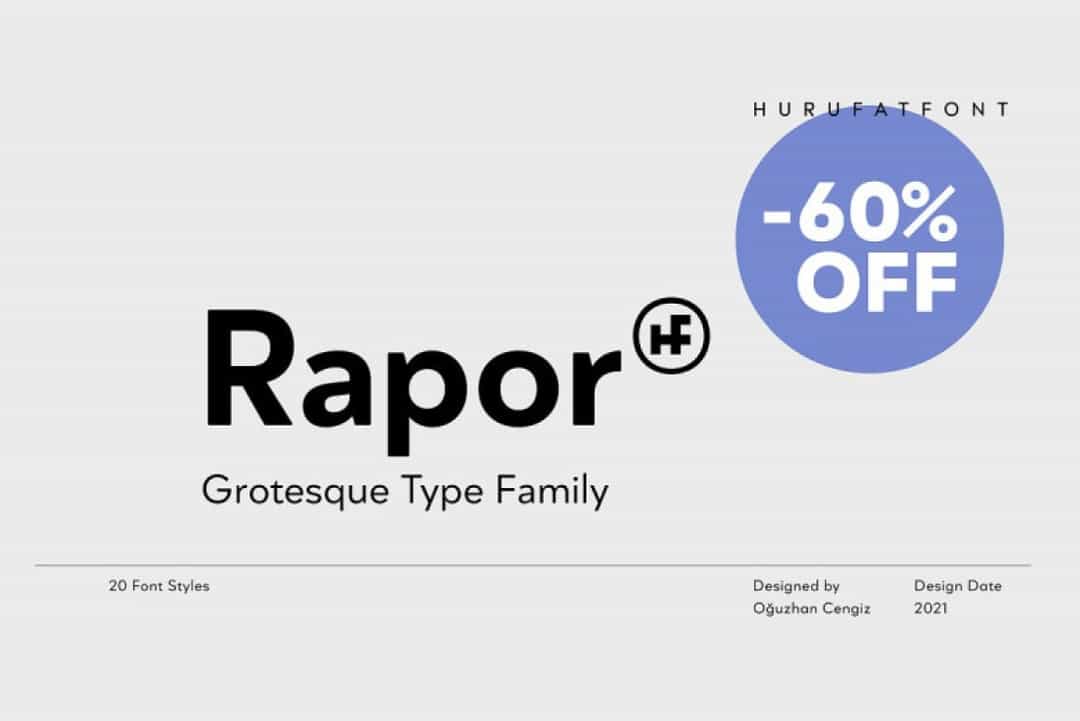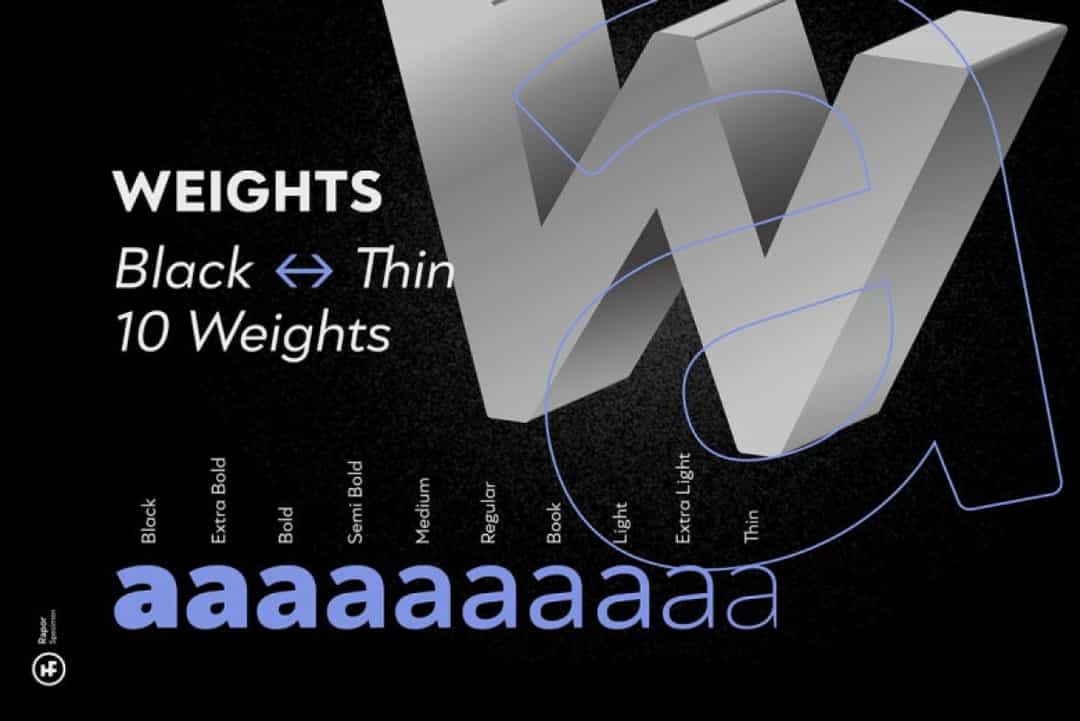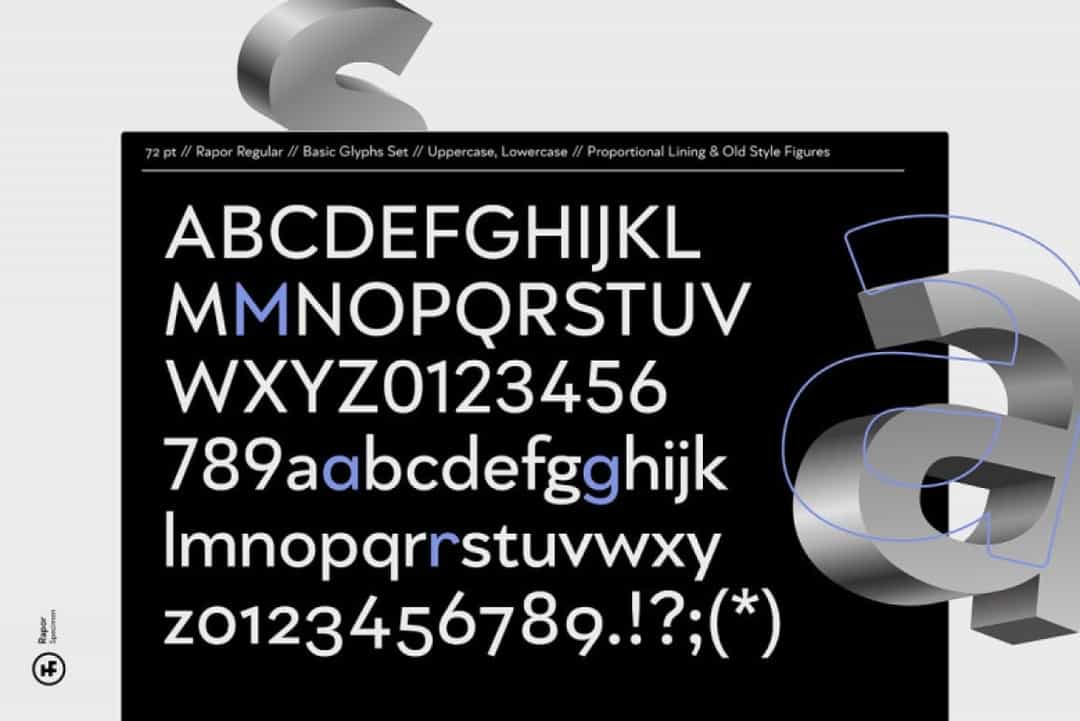
Rapor Sans Serif Font Family is an elegant combination, created from a blend of sans serifs with solid geometric foundations like Futura and grotesque fonts constructed using equal width method. Its slightly softened yet evenly converging diagonal corners add a distinct look.